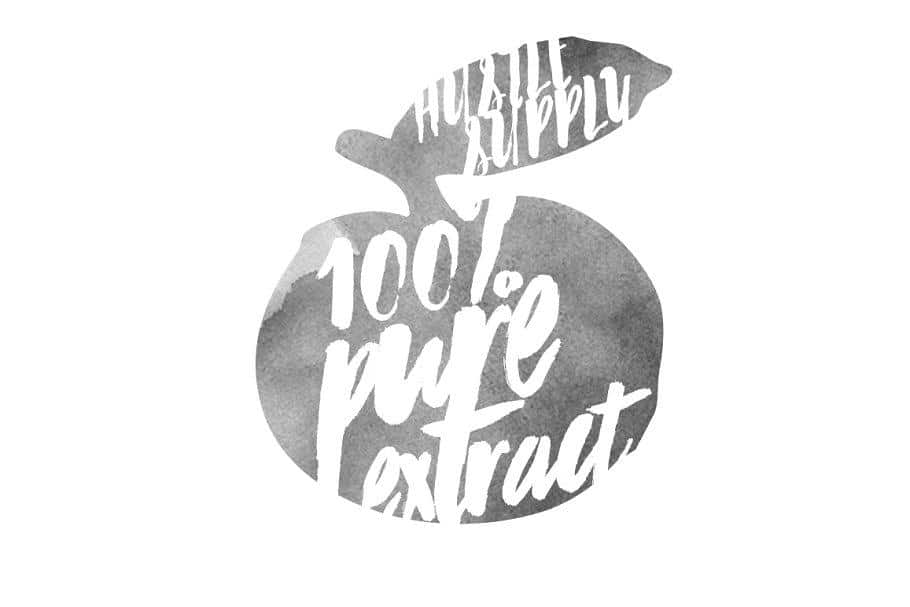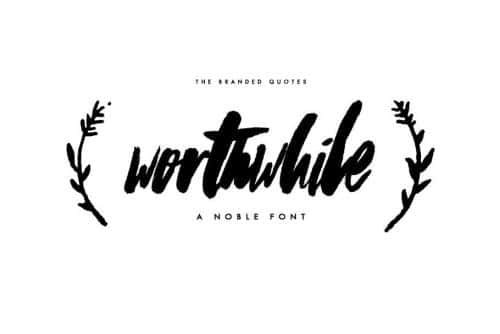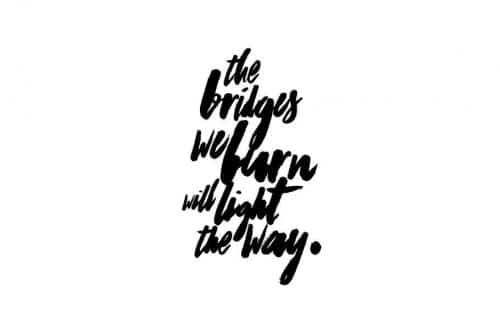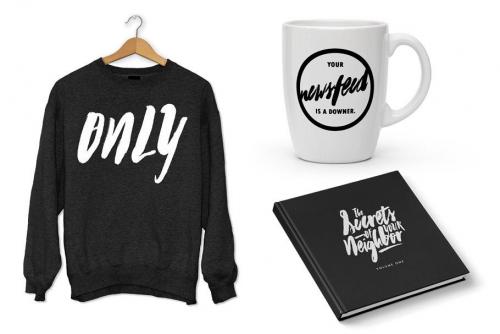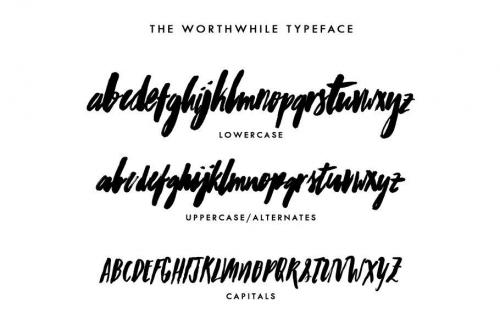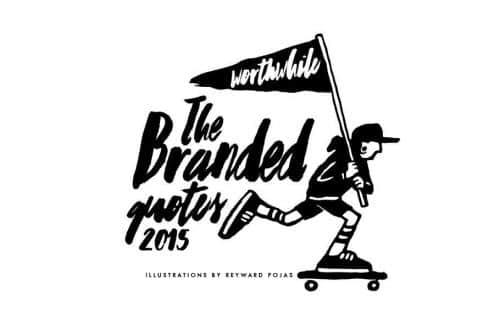
Worthwhile Font inspired by a noble phrase brushed on a blank sheet. Your frustration on pairing your satire artworks with the typeface it deserves is over! Even a plain background, this font will standout! Each glyph were carefully given the best weights and strokes to create an imbalance, natural yet harmonious effect to a word and phrase. Minimal and informal in one!
Useful for: Blog Header, Wedding Invitations, Band Logo, Business Cards, Quotes on Photos and Product Presentations. Works best with watercolor designs and backgrounds! Super detailed edges for a 100% natural feel.